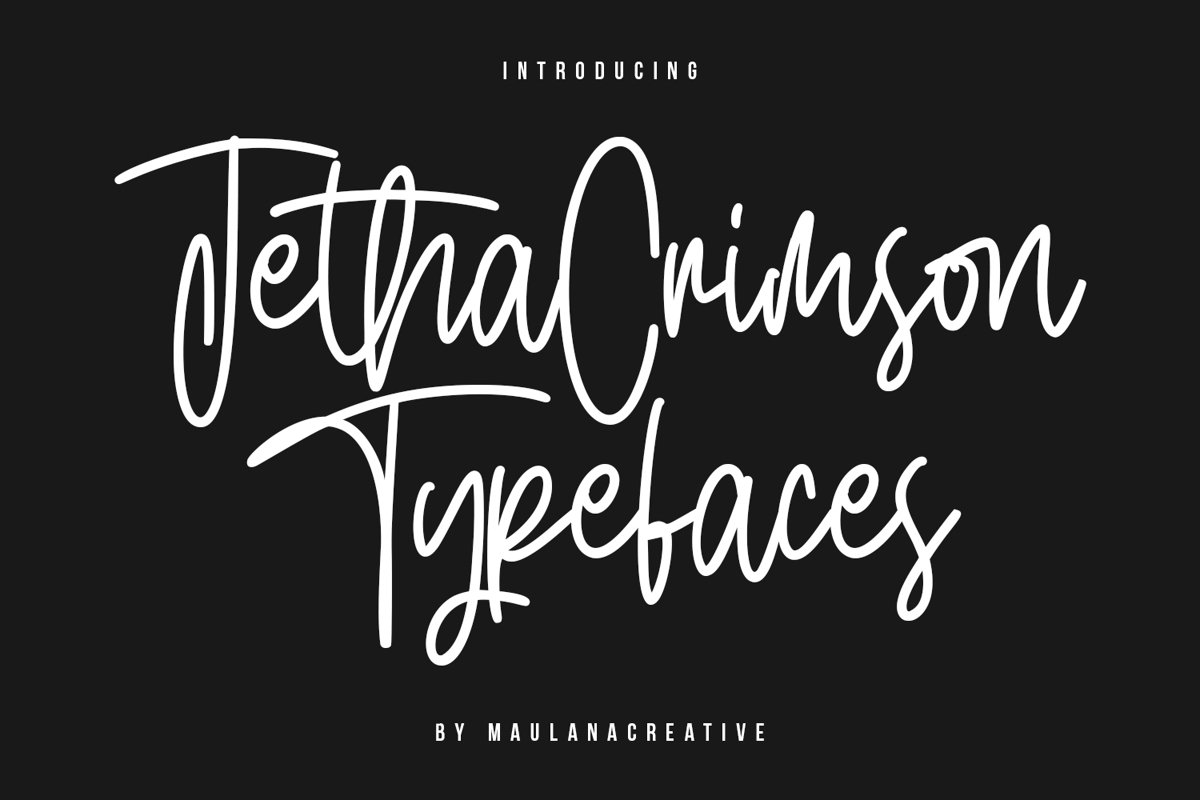
Jetha Crimson Signature Brush Font Typeface
Give your designs an authentic handcrafted feel. "Jetha Crimson Signature" is perfectly suited to signature, stationery, logo, typography quotes, magazine or book cover, website header, clothing, branding, packaging design and more.